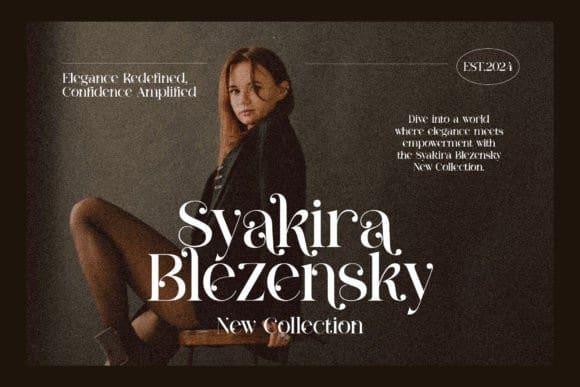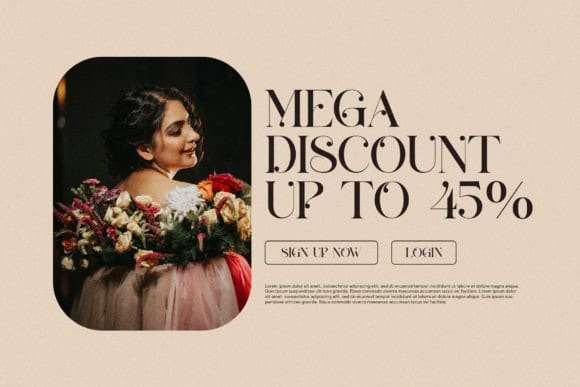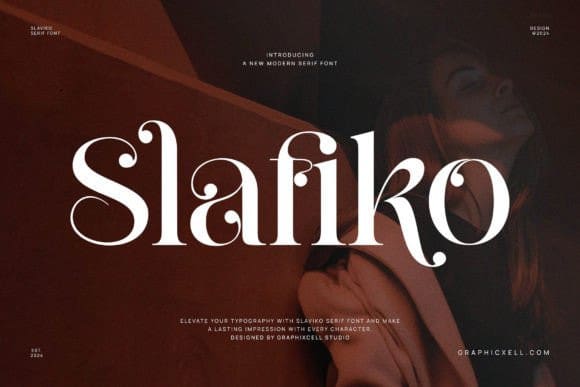
Slafiko Font
Slafiko Font is an elegant serif font, that features a very delicate and classy look. Not too thin and not too thick, balanced and varied, Slafika was designed to enhance the beauty of your projects.